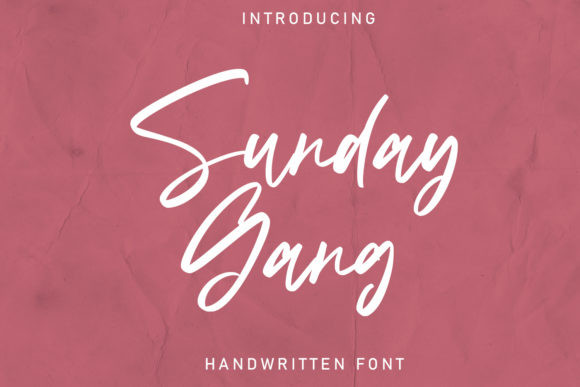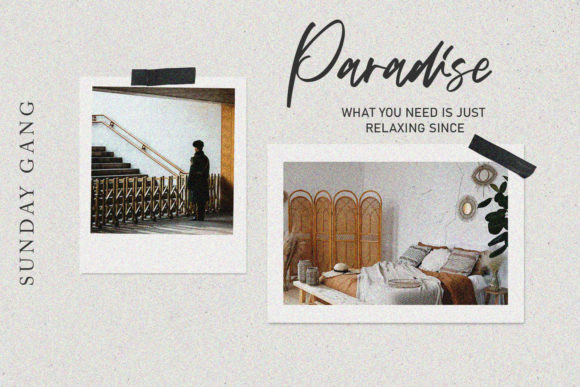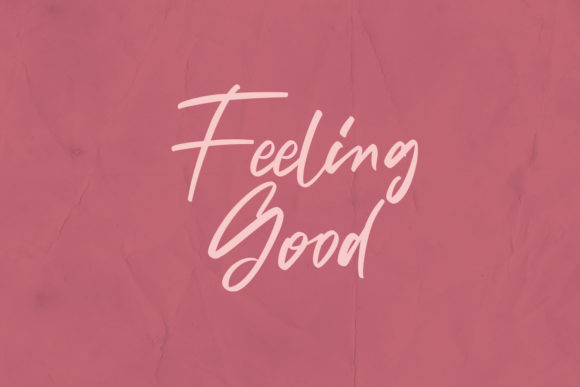
Sunday Gang Font
Sunday Gang simplifies elegance into one truly outstanding handwritten font. This font will appeal to a wide range of crafty ideas, from letterheads and titles, to stationery.